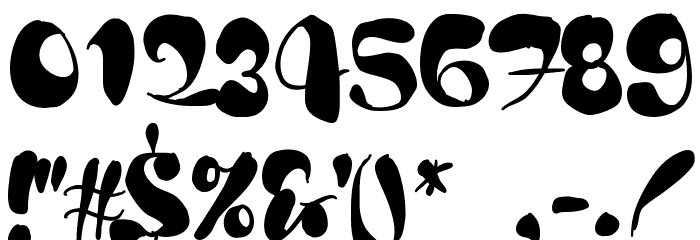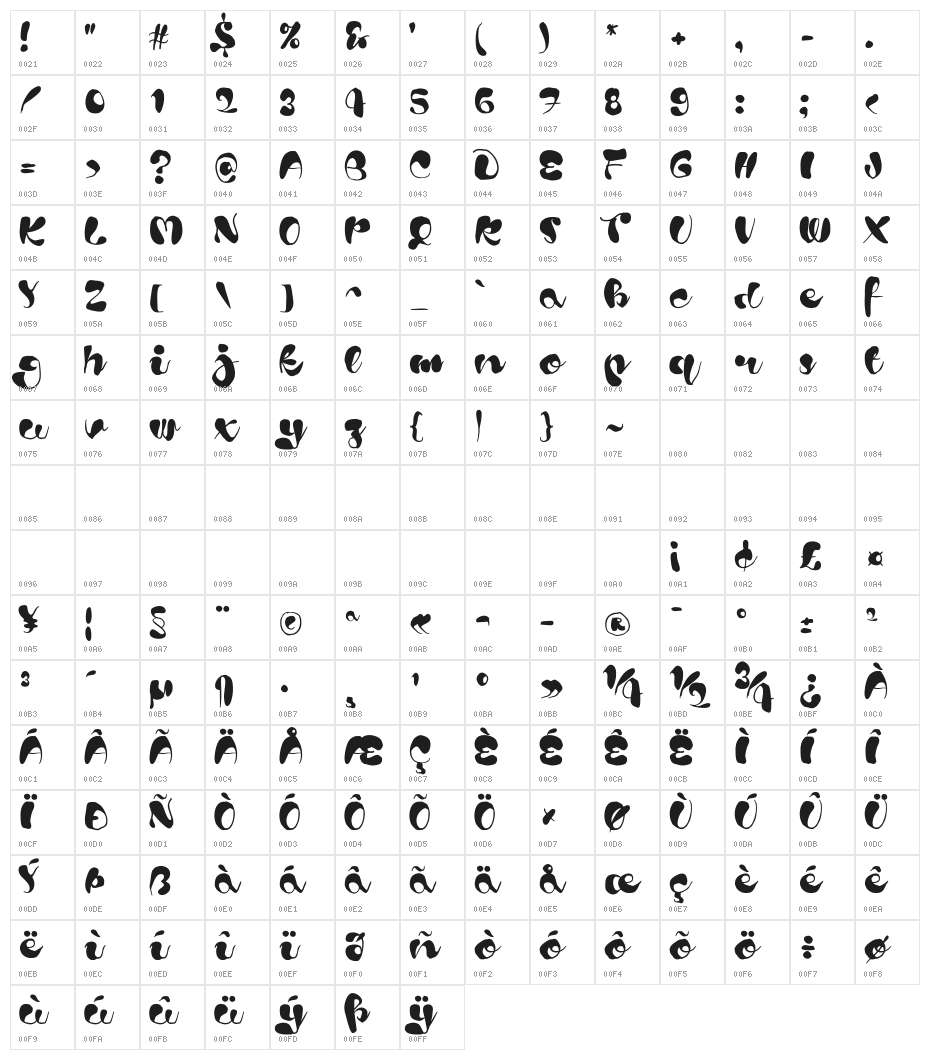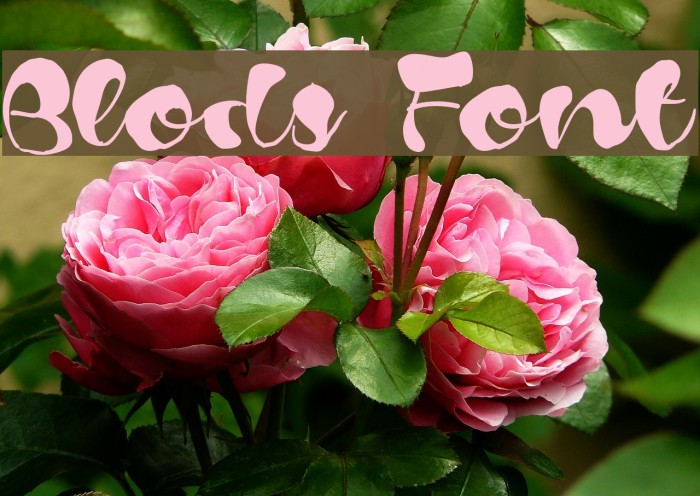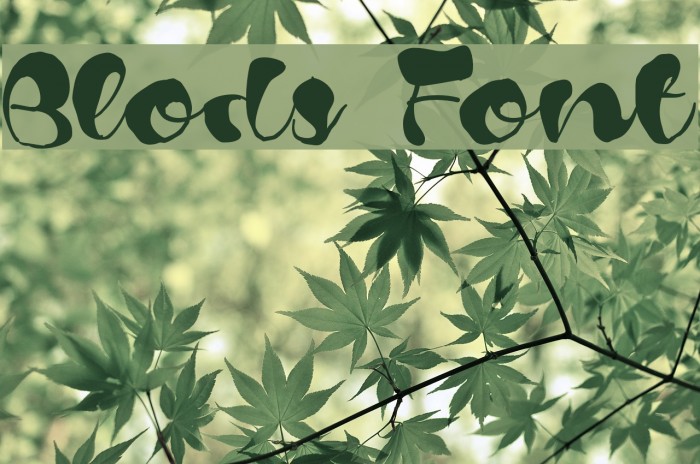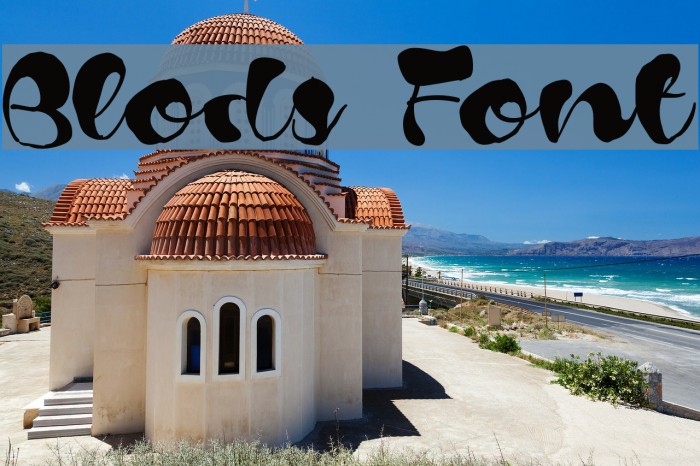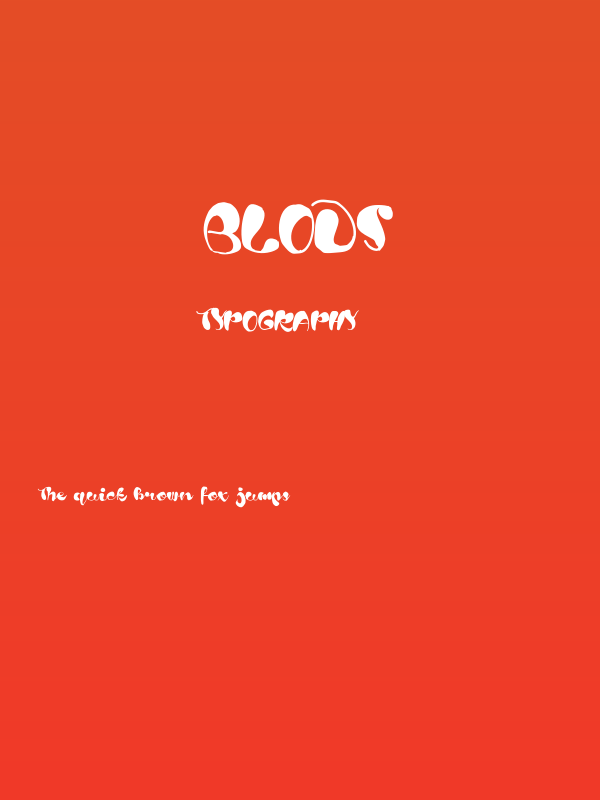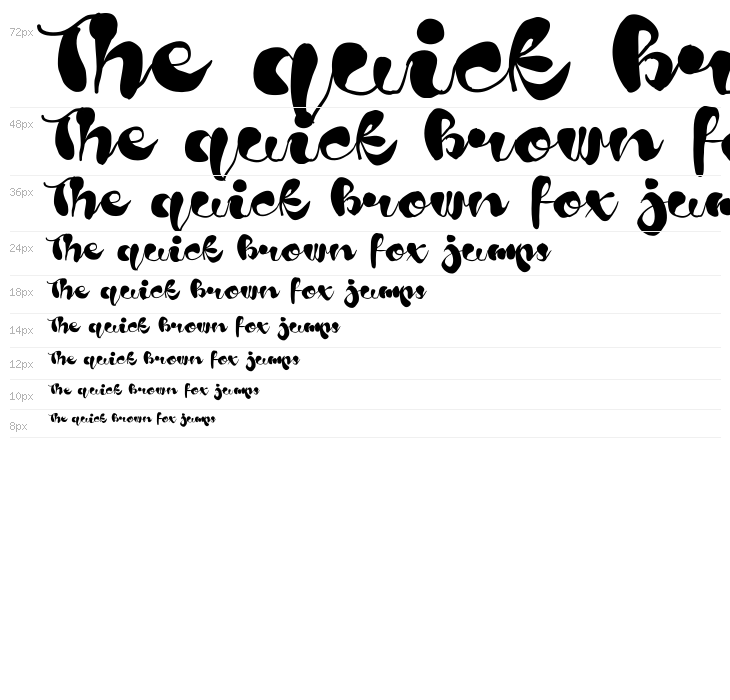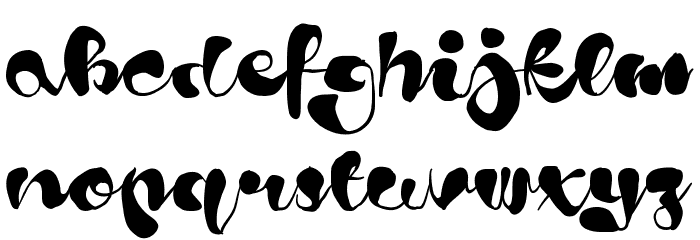
Blods Font
Blods Description
This font features a bold and expressive style with a strong emphasis on fluidity and movement. The characters are crafted with thick strokes and a calligraphic flair, giving them a dynamic and artistic appearance. The uppercase and lowercase letters maintain a consistent flow, while the numerals and special characters integrate seamlessly with the overall design. The font's boldness and unique character shapes make it stand out, offering a sense of creativity and individuality. It's ideal for projects that require a touch of elegance and artistic expression.
| Use Case | Headlines, Logos, Artistic projects |
| Proposed Projects | Perfect for artistic posters, creative branding, invitations, and expressive headlines. |